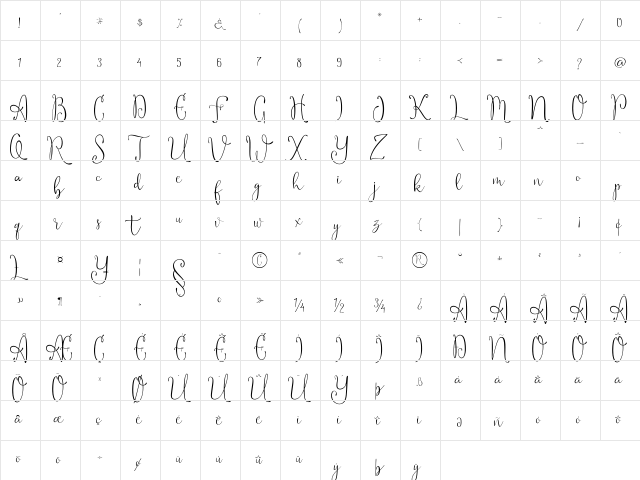
Notalistic Regular
Design Context for Notalistic Typeface
Notalistic is a composed and adaptable typeface that performs quietly and consistently across a wide range of design contexts.